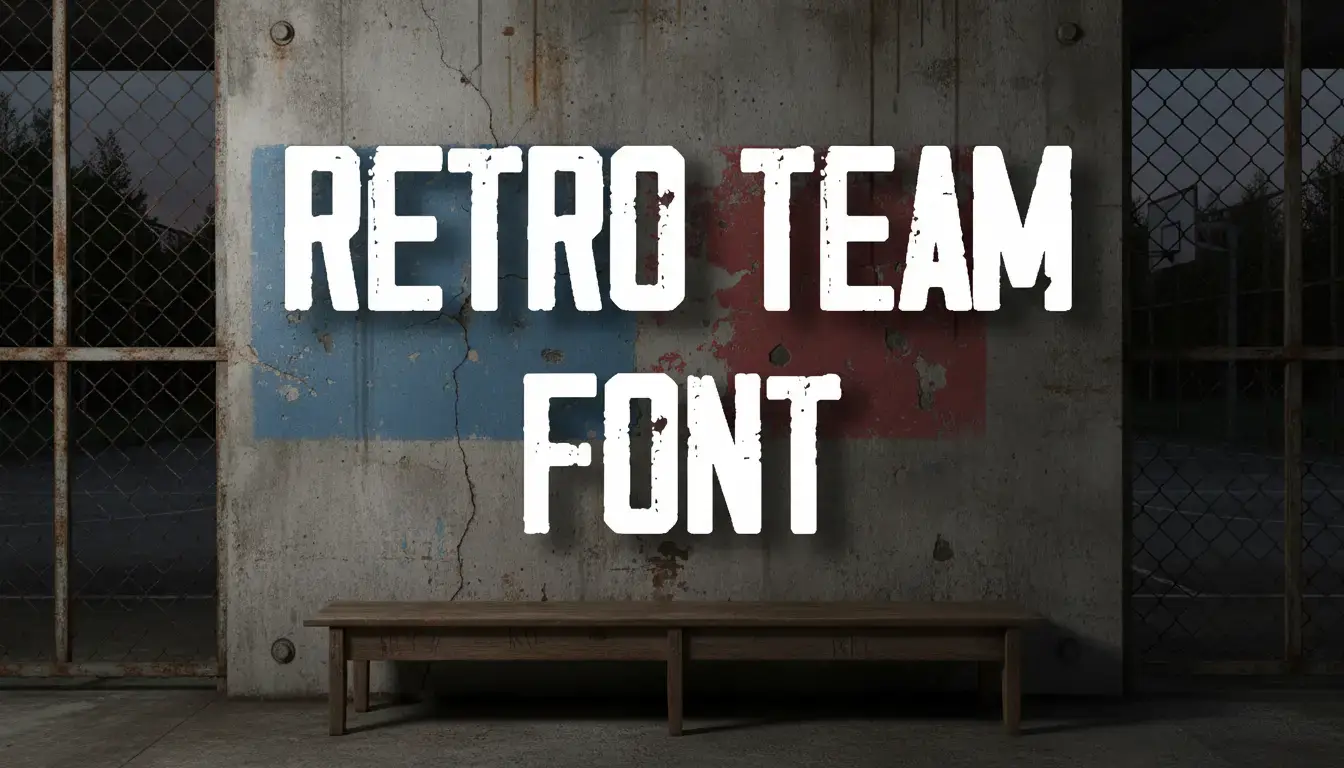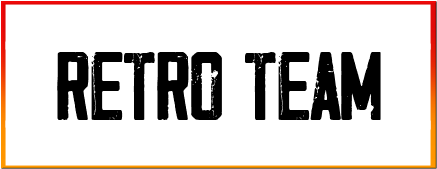
Retro Team Font
Retro Team is a fancy font made by Woodcutter Manero. Bold and full of character, it's built to stand out rather than blend in. You can download it for free and test it with your own words in the preview above.
Retro Team covers the full alphabet in upper and lowercase, plus all ten numbers, so you can set names, dates and prices without switching fonts. Common punctuation such as &, !, ? and @ is included as well. It also has the accented letters you need for Spanish, French, German, Portuguese and Italian.
Designers usually reach for fonts like Retro Team when they're making posters, logos and eye-catching headlines. Use it for one standout word or headline and let simpler fonts handle the rest.
Yes. Retro Team includes the accented letters needed for Spanish, French, German, Portuguese and Italian, so it works for more than just English.